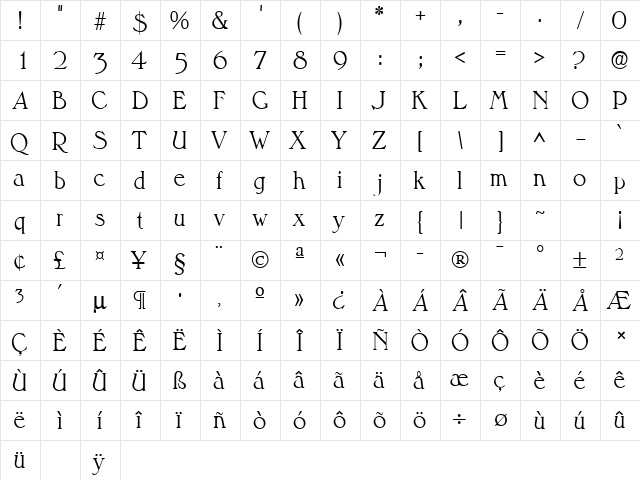
ValitLightSSK Regular
Design Context for ValitLightSSK Typeface
ValitLightSSK is a composed and adaptable typeface that performs quietly and consistently across a wide range of design contexts. Its slender proportions lend an understated elegance to any composition.